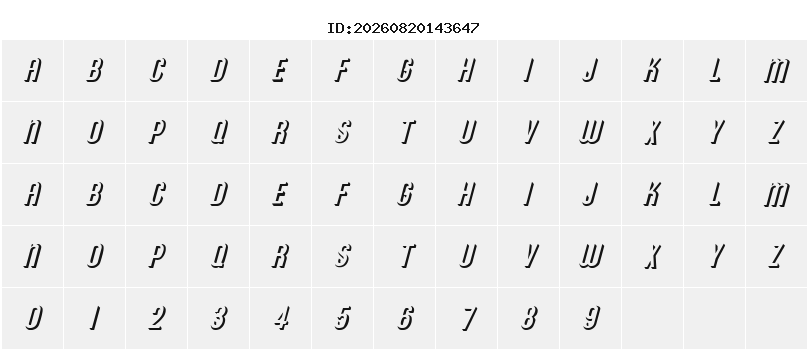
• Font Name: Shadow 3
• Font ID: RoundedRelief Italic:
• Full Font Name: Shadow 3
• Version: 1.0 Tue May 02 16:26:15 1995
• PostScript Name: RoundedRelief-Italic
• Character Count: 397
• Copyright: Cambridge Fontworks
About Shadow 3.ttf
Shadow 3.ttf is a modern, elegant sans-serif font designed for ultimate readability and visual harmony. Perfect for branding, headlines, web design, and print materials.